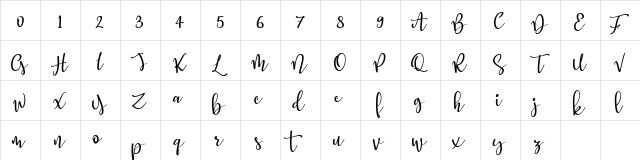
Better Memories Regular
| Designer | Ardian Nuvianto. 2019 |
Design Context for Better Memories Typeface
Better Memories is a composed and adaptable typeface that performs quietly and consistently across a wide range of design contexts.